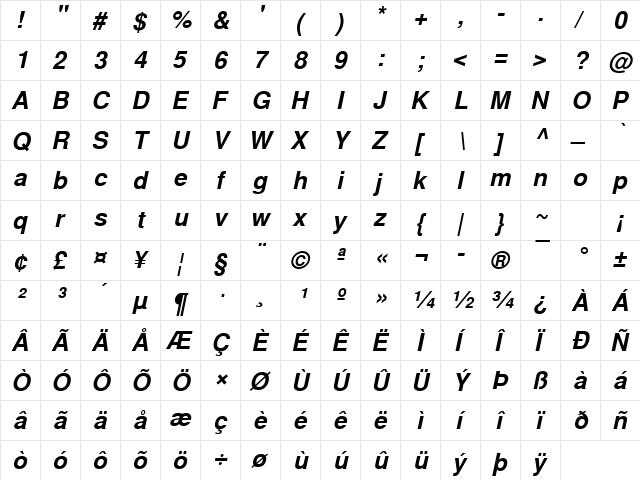
Nimbus Sans Becker L Bold Italic
Design Context for Nimbus Sans Becker L Typeface
Nimbus Sans Becker L offers clean, dependable letterforms without strong stylistic allegiance, making it a practical choice for designers who need flexibility. The dynamic lean of this cut emphasises speed and emphasis in any layout. Its bold stroke weight gives it real presence on the page.
Pro Tip: Try Nimbus Sans Becker L for annotation and caption copy alongside an upright companion — the contrast in angle creates a dynamic but ordered typographic system.